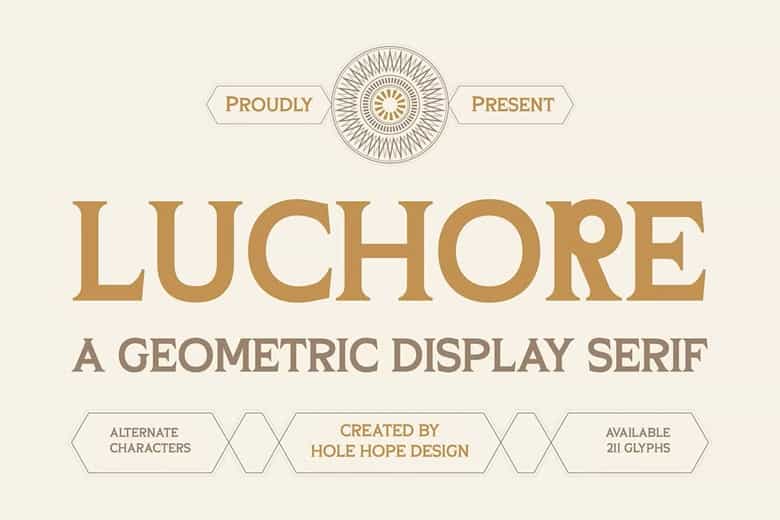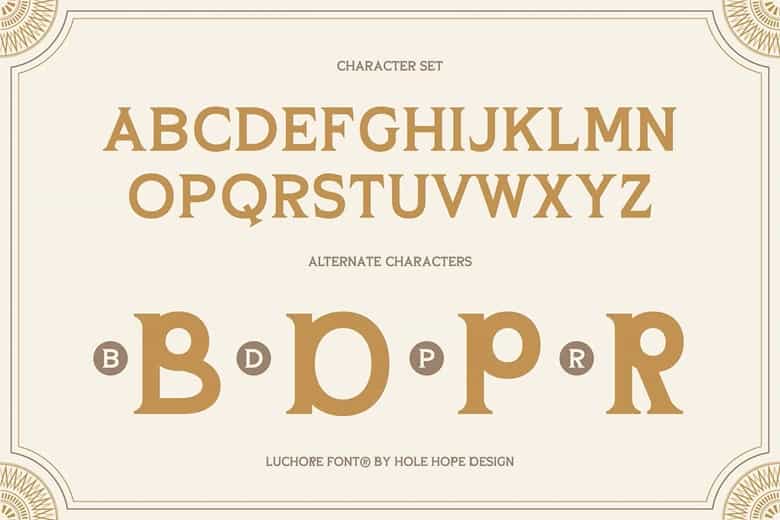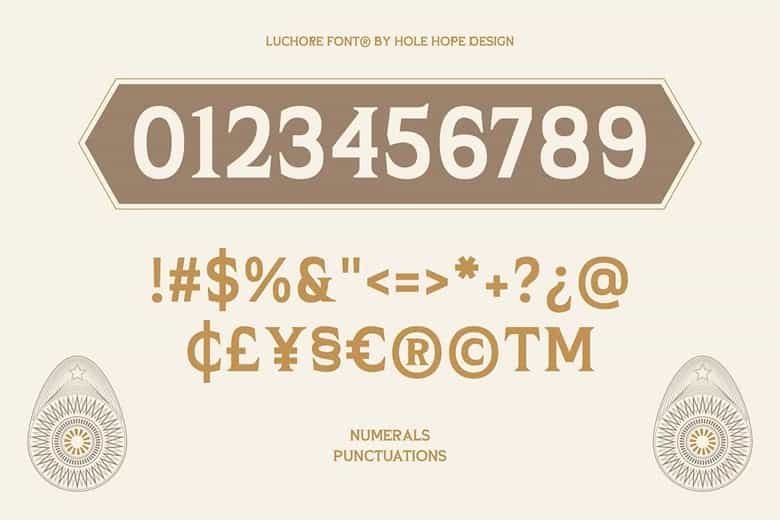
Discover Luchore Font, part of the Serif Display collection—a versatile and unique font perfect for adding a personal touch to your projects. Download it for free and enjoy crafting designs with style, from invitations to social media posts. This font is available exclusively for personal use, giving you the freedom to create without limits. Unlock your creativity with Luchore Font today!
Luchore is a combination of elegant and innovative squeezes, to create the best result for your Easter Day style wishes. Luchore has a noteworthy well-balanced geometric design and a barely noticeable serif to boot, so it looks elegant and inviting; it should be used for the holiday cards.